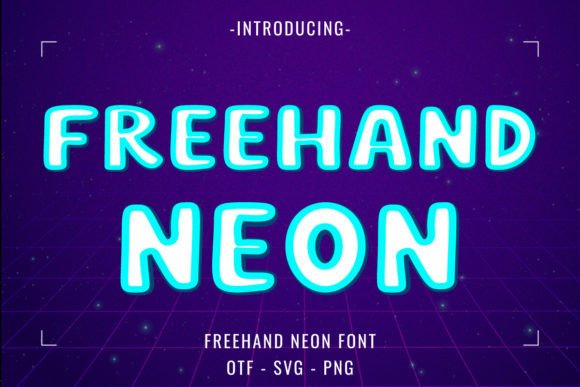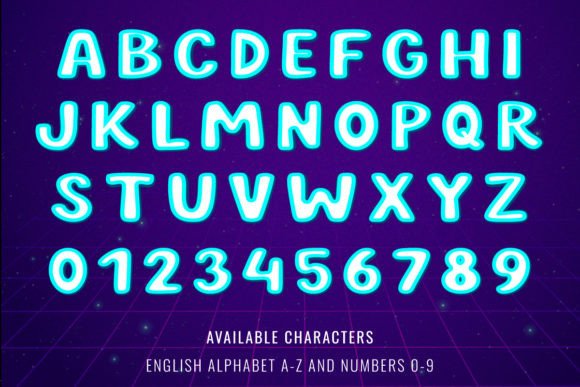
Introduction to Neon Collection Font
This Neon Font Collection contains 6 fonts, This charming font was created with inspiration from colorful neon lights at night.
Its vivid hues and sleek letterforms capture the essence of urban neon signs, creating a visually striking and modern aesthetic – You’ll get 6 OTF Fonts include Bonus files (SVG and PNG Files graphics).